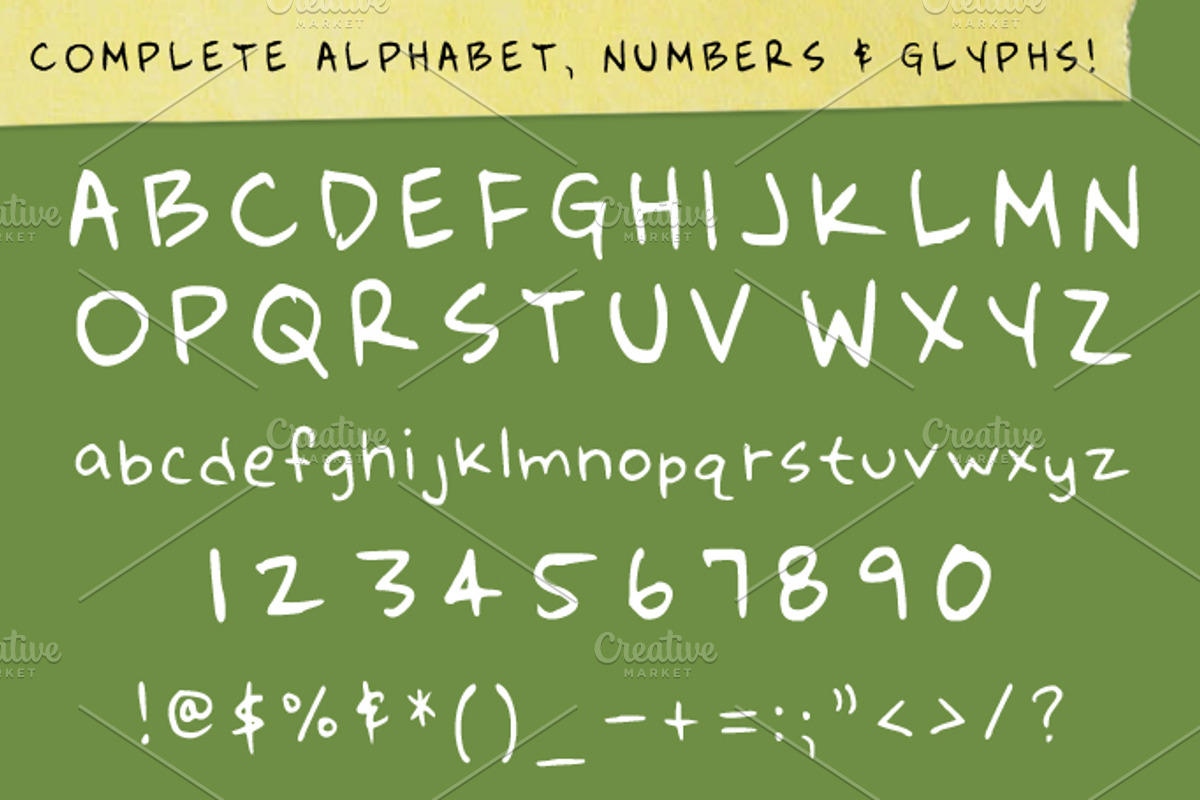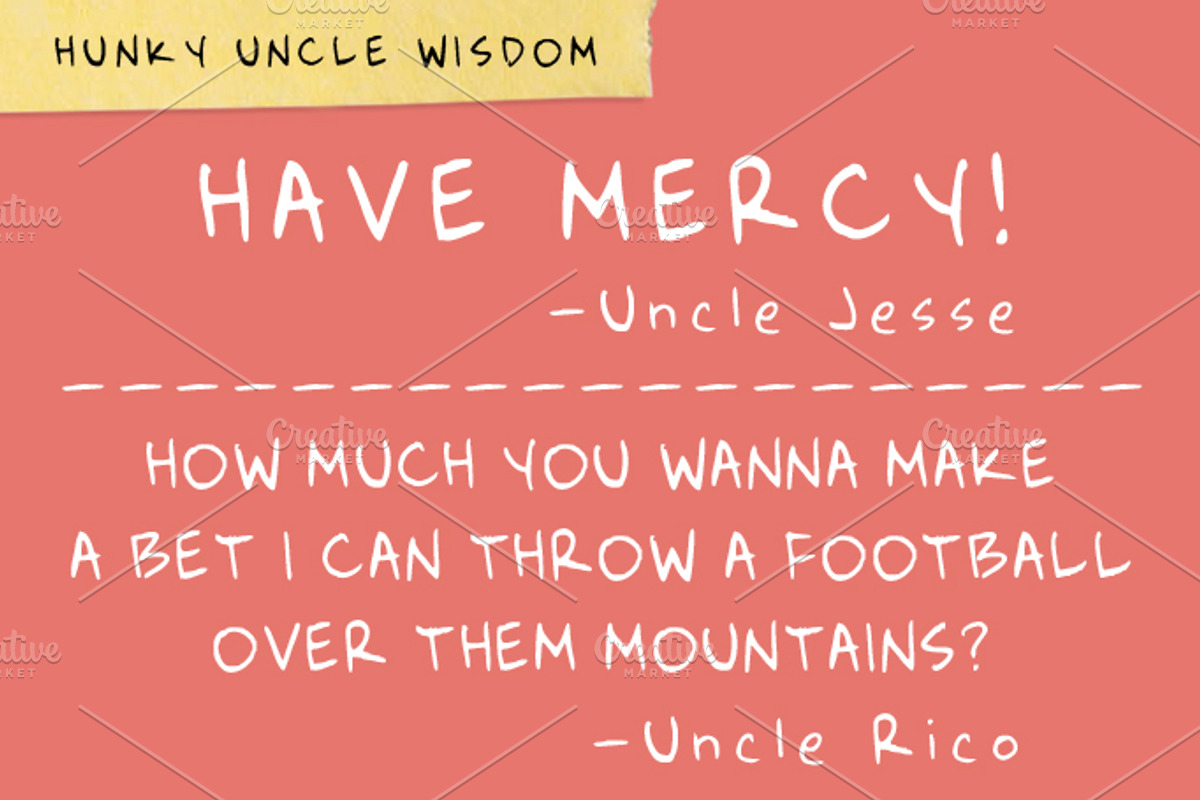
Hunky Uncle Handwritten Script Font
Hunky Uncle Handwritten Script Font by SkyvaraSupply is a font selected for branding, posters, packaging, typography.
- Complete upper and lower case alphabet with numeric characters plus all glyphs!
Hunky Uncle Handwritten Script Font by SkyvaraSupply fits naturally into Branding, posters, packaging, typography.